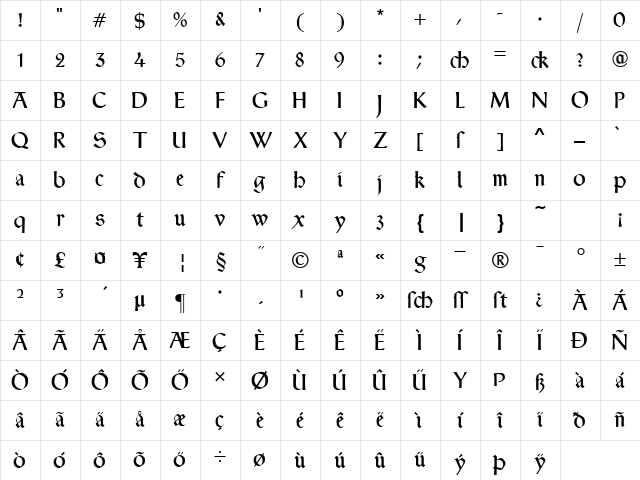
Typographer Rotunda Regular Free Font
Typographer Rotunda Regular
Designer: Dieter Steffmann
Design Context for Typographer Rotunda
Typographer Rotunda is a composed and adaptable typeface that performs quietly and consistently across a wide range of design contexts.